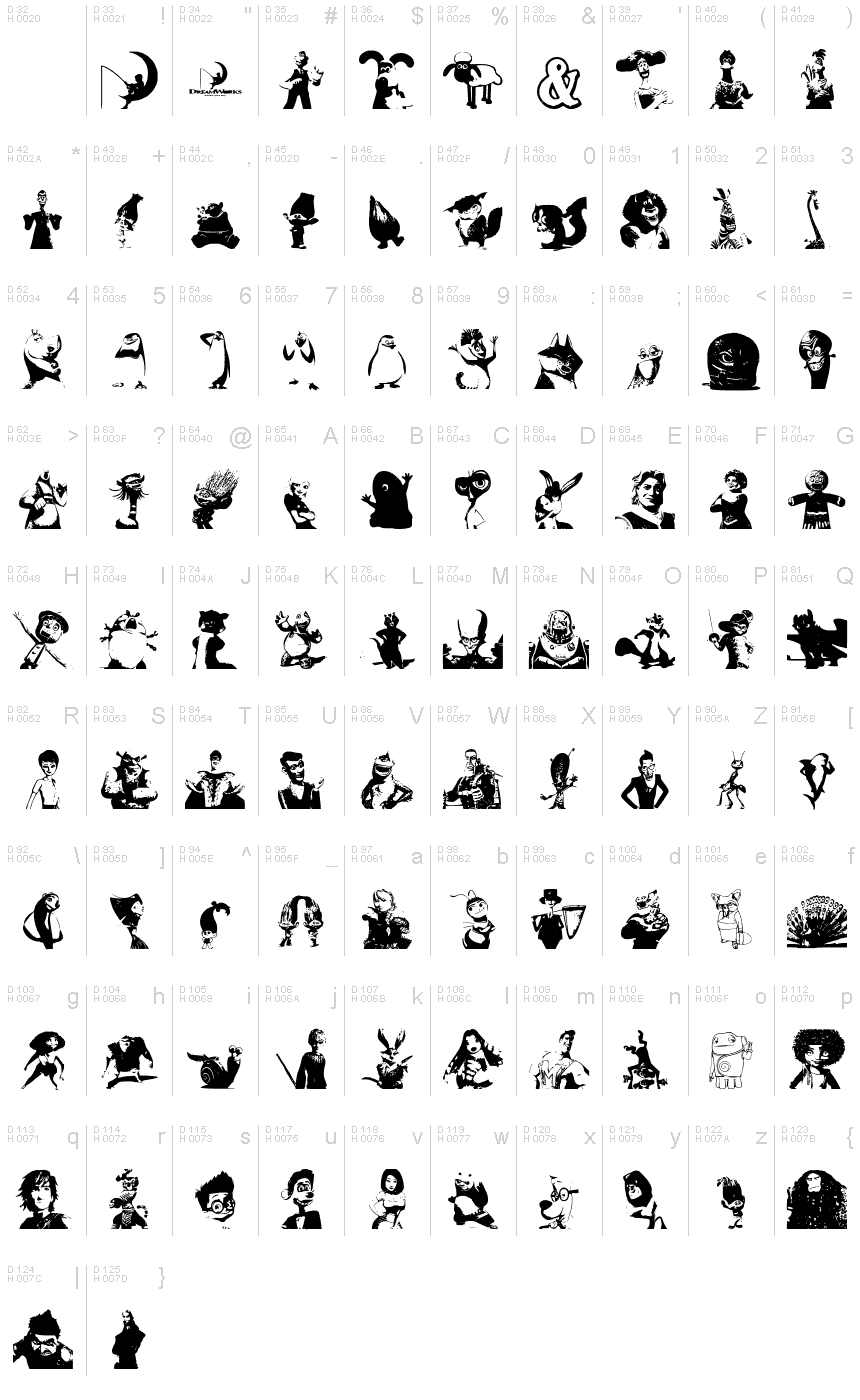
Markbats 4 Regular
Markbats 4 is the fourth installment of Markbats, released on June 2, 2020. It largely consists of characters from DreamWorks Animation Studios.
- The numbers (0-9) represent the main characters from Madagascar.
- The exclamation point (!) is encoded with the DreamWorks symbols. The quotation mark (") is encoded with the full DreamWorks logo.
- The lowercase "t" does not have a symbol.
- Markbats 4 has the fewest symbols of the Markbats font family.